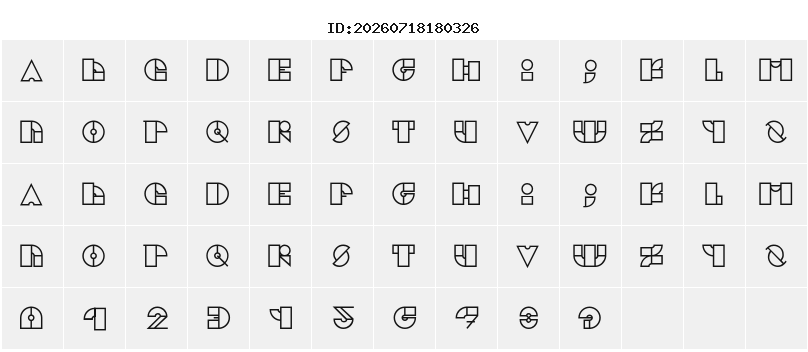
• Font Name: Cubik
• Designer: Nio Seck1
• Manufacturer: Seck Design
About Cubik.otf
Cubik.otf is a modern, elegant sans-serif font designed for ultimate readability and visual harmony. Perfect for branding, headlines, web design, and print materials.